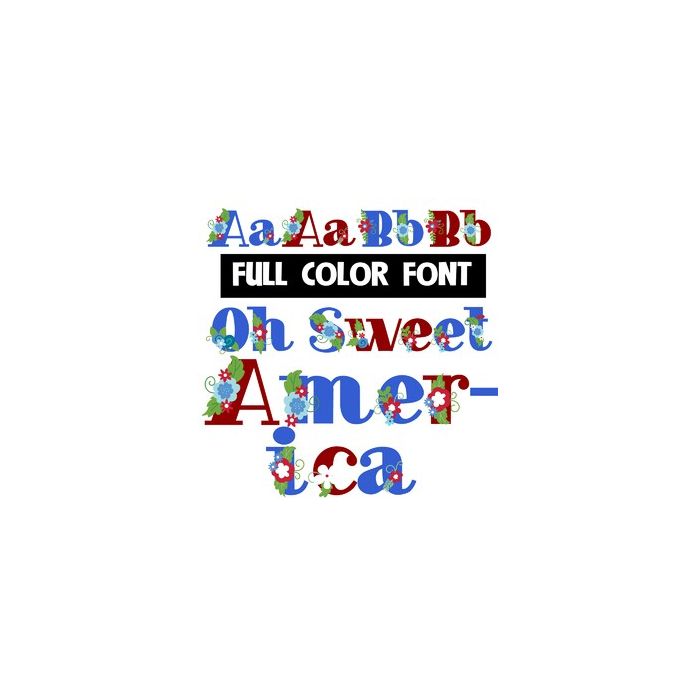
This full-color font features patriotic colors and flowers throughout. There is an alt uppercase with secondary colors that you can access through your system's character map. This font works best for titles, displays, posters and more. Please note color fonts will show as black in non compatible programs. This font type is compatible with Silhouette Studio.